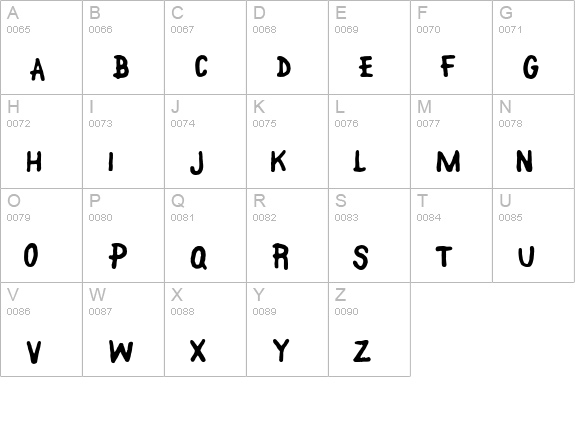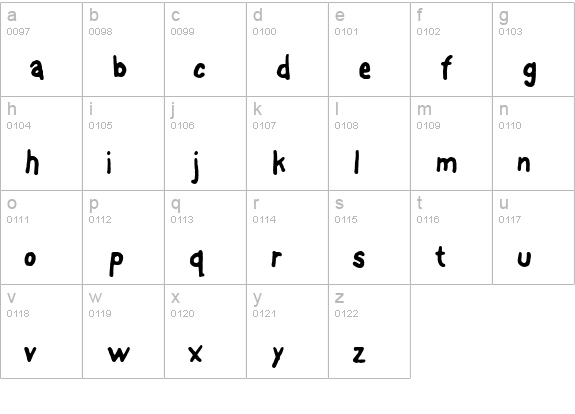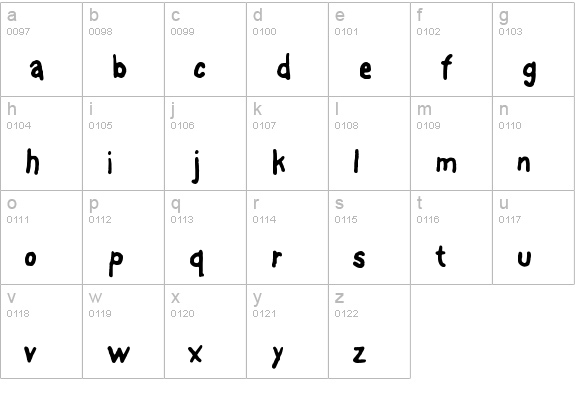
FontOnAStick Font Details
Introducing FontOnAStick, a versatile and modern font that is sure to make your designs stand out! With its sleek lines and stylish curves, FontOnAStick is perfect for a wide range of projects, from branding to social media graphics. This eye-catching font is available for free download exclusively at FontsMarket.com, where you can easily access and add it to your collection. Whether you're working on a professional project or a personal creation, FontOnAStick offers the perfect balance of elegance and readability. Make a statement with your typography and elevate your designs with FontOnAStick. Download it today and start creating stunning visuals that will leave a lasting impression!